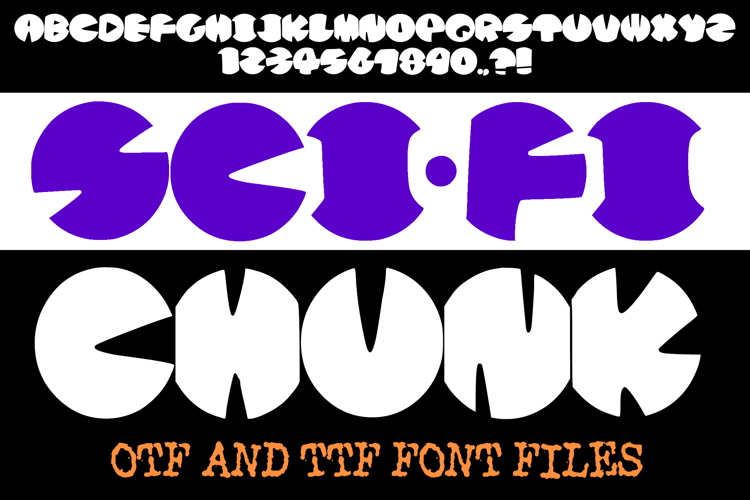
Sci-fi Chunk Font is a bold and futuristic display typeface with a unique cutout style that gives your designs a modern, space-inspired edge. Its chunky geometric letters are perfect for posters, game titles, tech logos, album covers, and creative projects that need a strong sci-fi vibe. With its eye-catching shapes and versatile style, this font is ideal for making your designs stand out. Includes OTF and TTF files for easy use in all major design software.